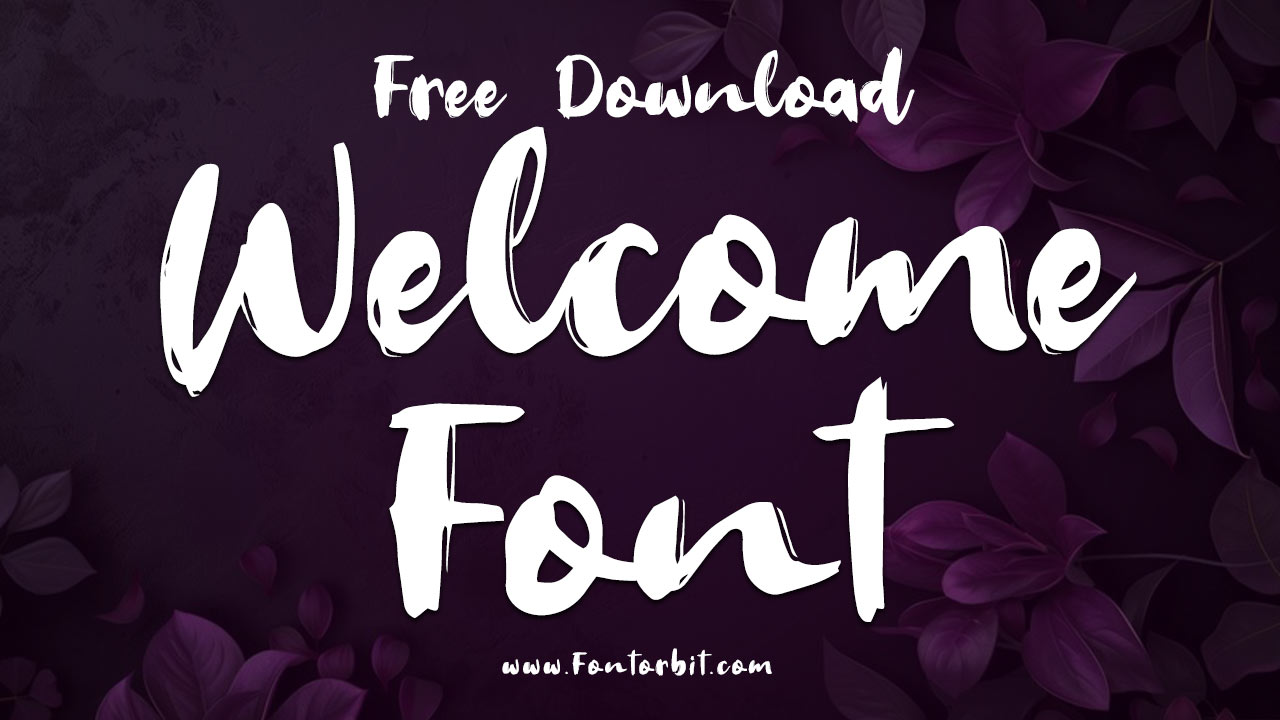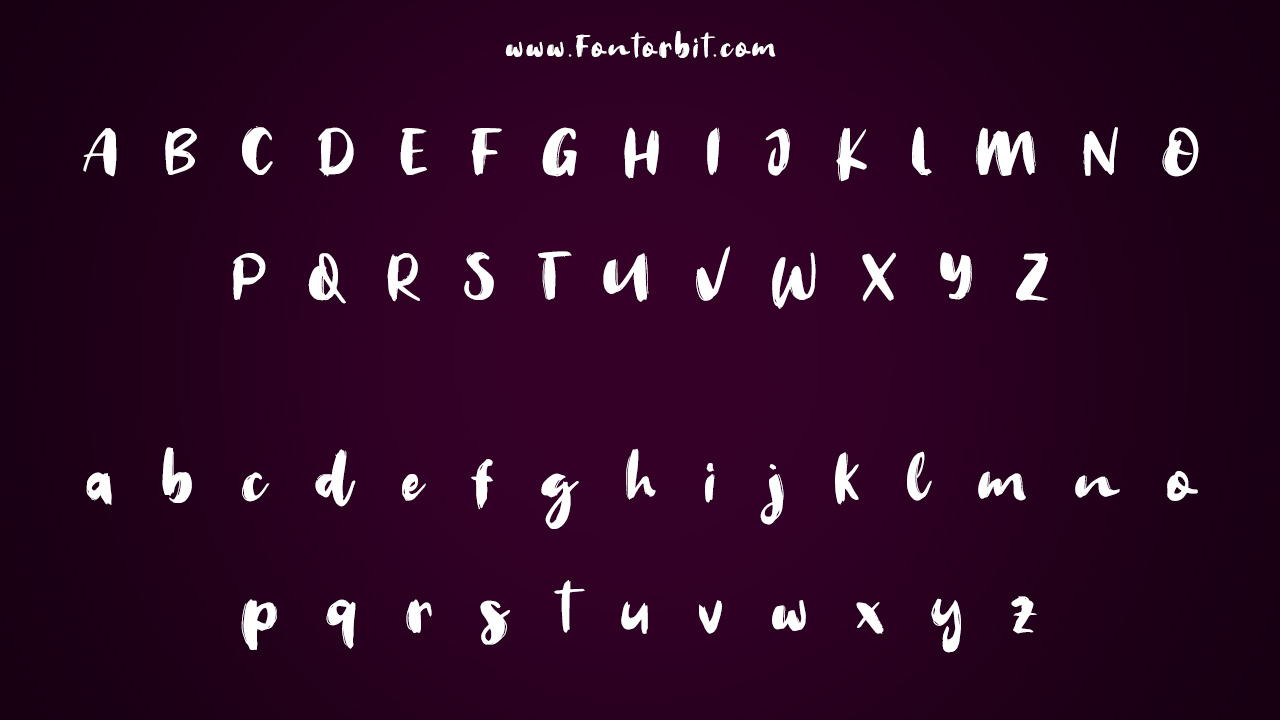
Welcome Font, designed by Asep Zaenuri and published by Hardiboydesign, offers a bold and trendy script style. Available for free personal use, this font is ideal for adding a modern and stylish touch to your projects.
The Welcome Font is a distinctive script typeface available in TTF format and is free for personal use. It features thick, trendy letterforms, making it suitable for a range of design needs. Its character map includes a variety of glyphs, providing ample coverage for stylish and contemporary designs.
The Welcome Font Found In Use
Welcome Font is commonly used across various design mediums for its trendy and bold appearance. It is often seen in social media graphics and modern branding, where its thick, stylish letters add a contemporary touch. This font is also popular for invitations and promotional materials, enhancing visual impact with its eye-catching style.
Welcome Font, created by Asep Zaenuri, provides a bold and trendy script style ideal for various personal and creative projects.